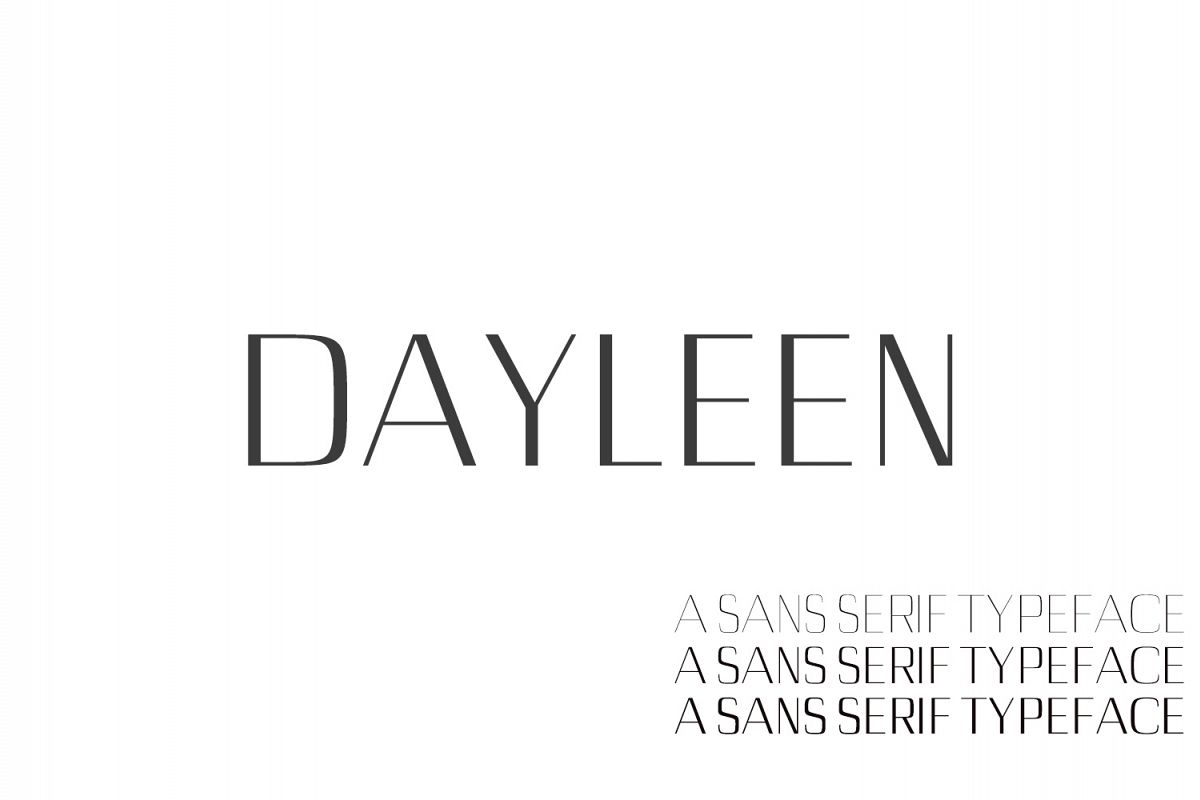
Dayleen Sans Serif Font Family
Dayleen-Light
Dayleen-Regular
Dayleen-Bold
Dayleen-Thin
Dayleen-Outline
Dayleen-Smooth
Dayleen Sans Serif Typeface is a set of 4 weights font family. It is good for making creative templates and stationary. Dayleen suits best for minimal / decoration, logos, headlines, banners and templates etc. It looks gorgeous in all caps with a wide-set spacing if you want to try a classy look, or beautiful on its own in capital and lowercase letters for something completely timeless.
• Regular, Thin, Light, Smooth, Outline and Bold Weights
Dayleen Font Features:
• Uppercase Multilingual Letters
• Lowercase Multilingual Letters
• Non English Characters ( Latin Supplement + Latin Extended A )